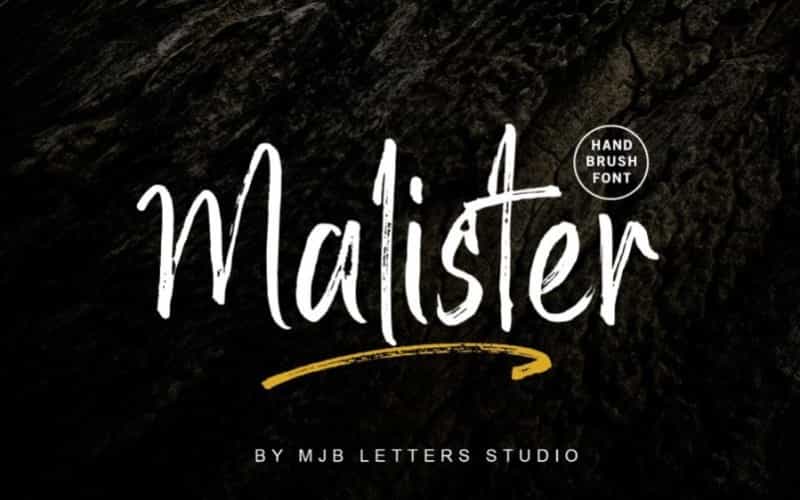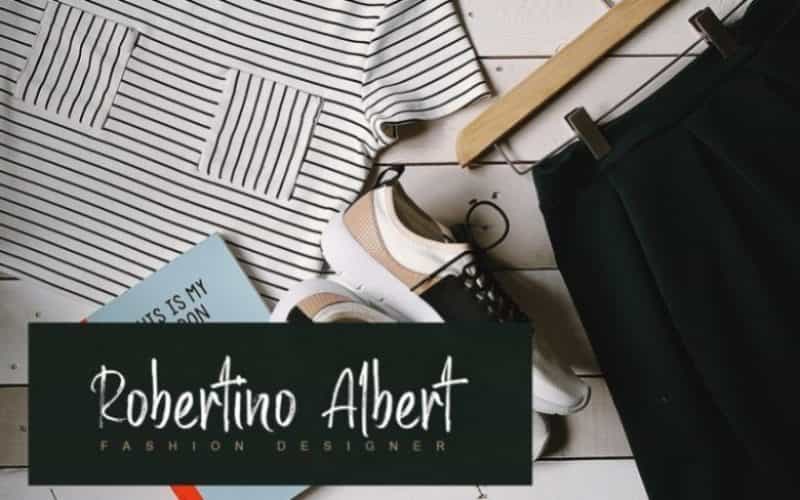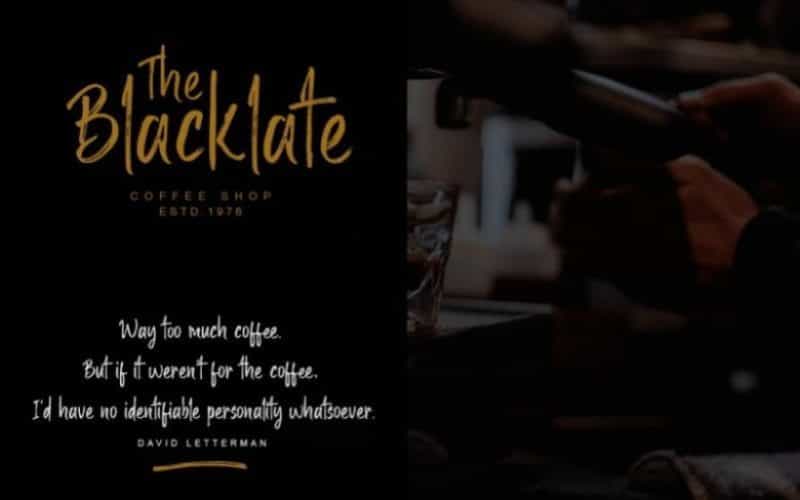
Malister is a hand brush font with a very tough and strong texture, which makes it the perfect choice for logos, posters, magazines, quotes, business cards and other applications where you want to make an impression.